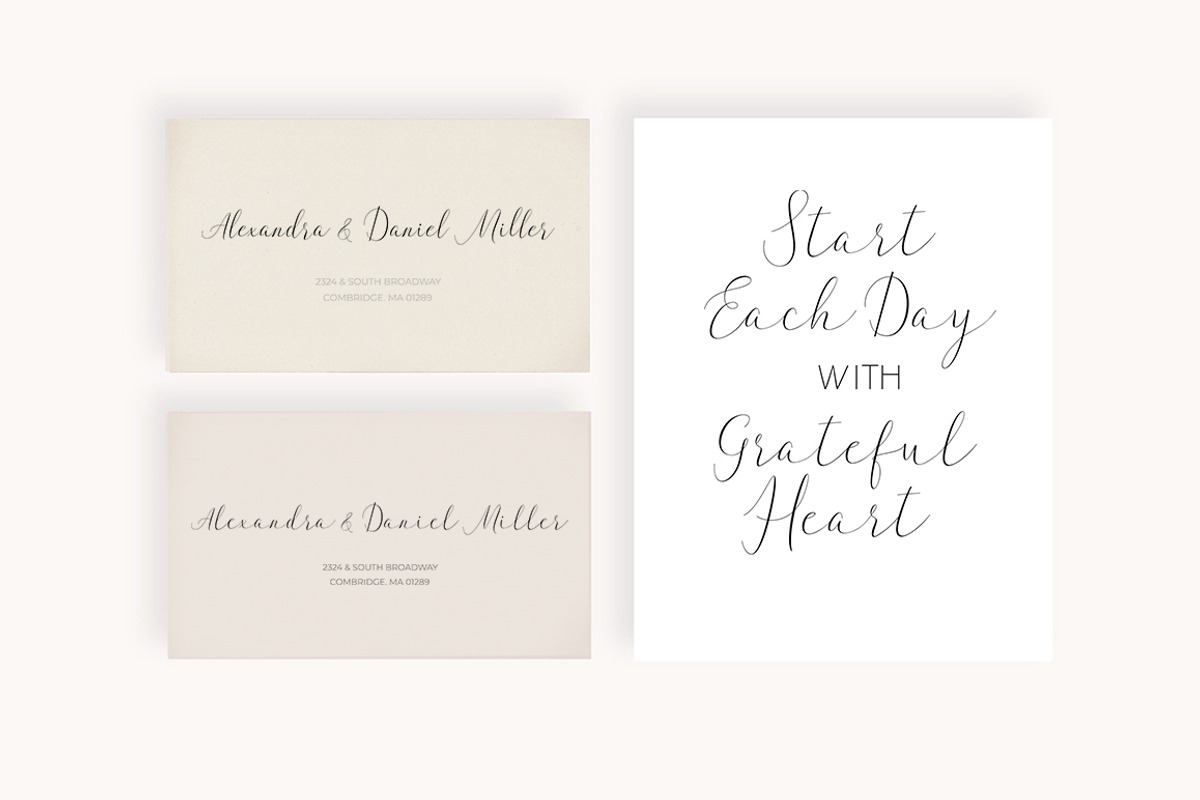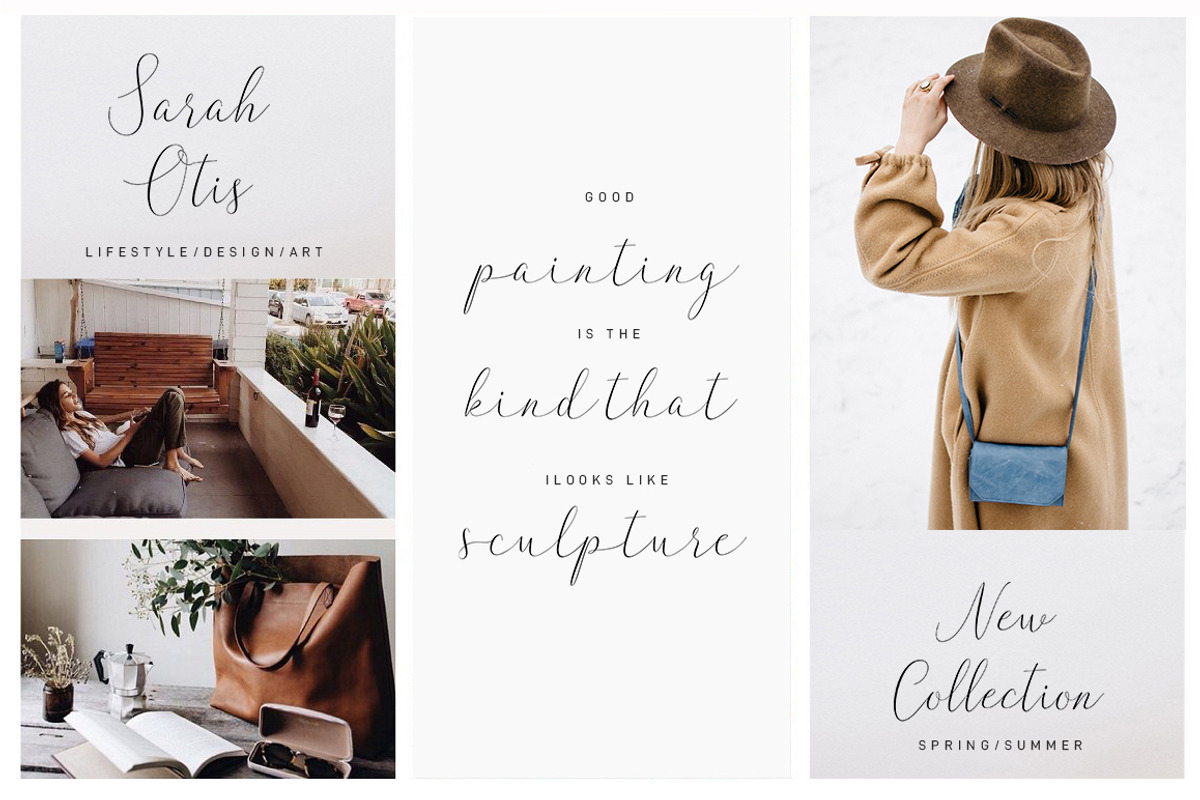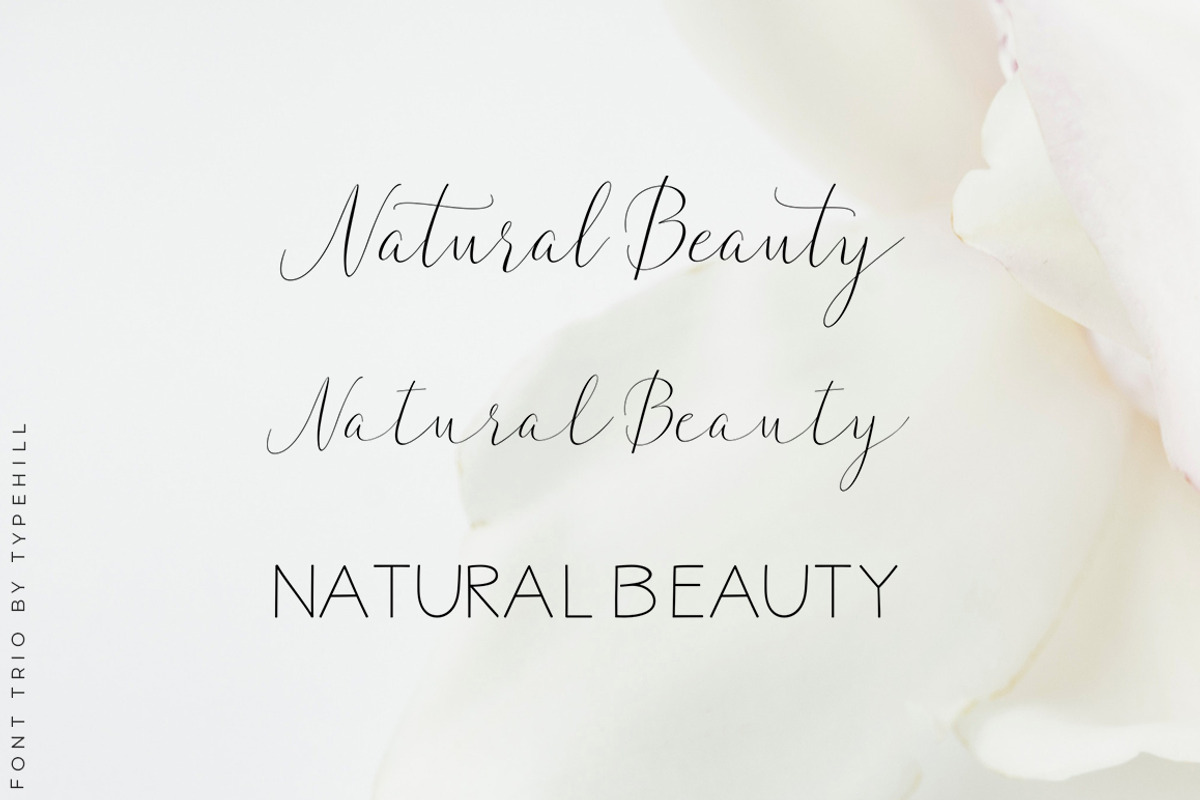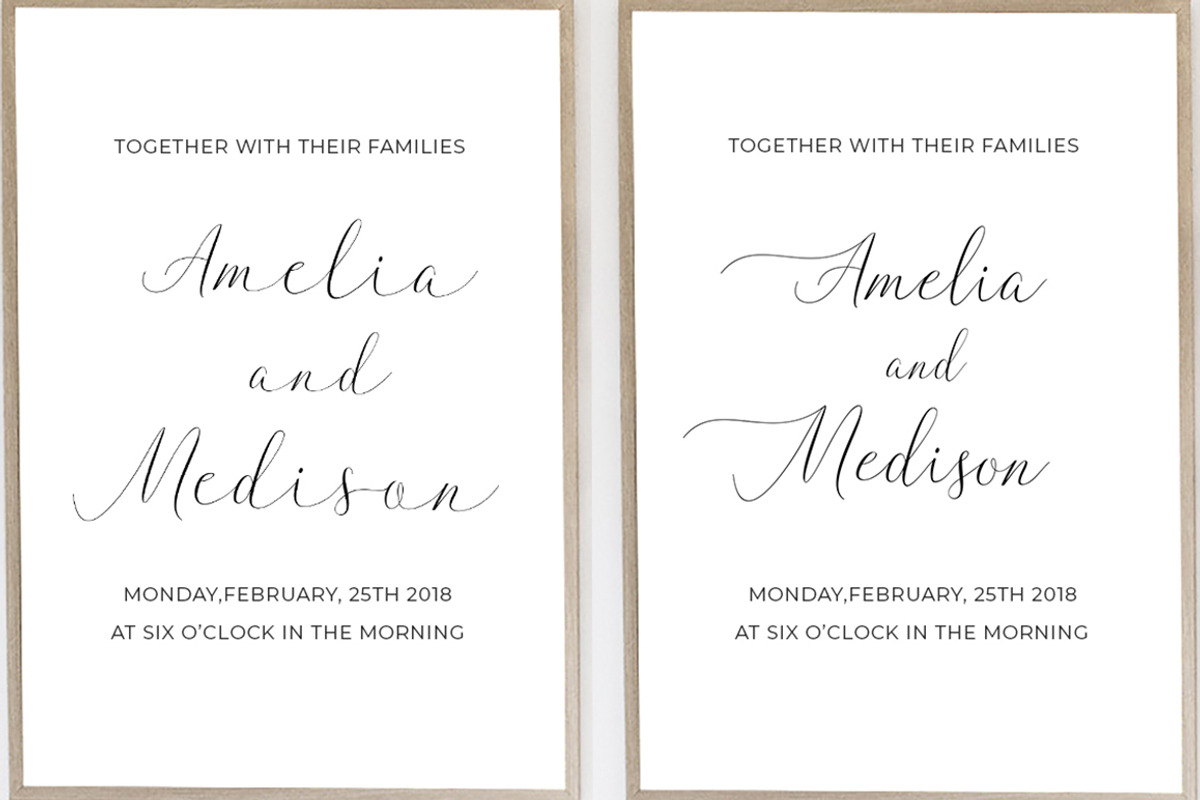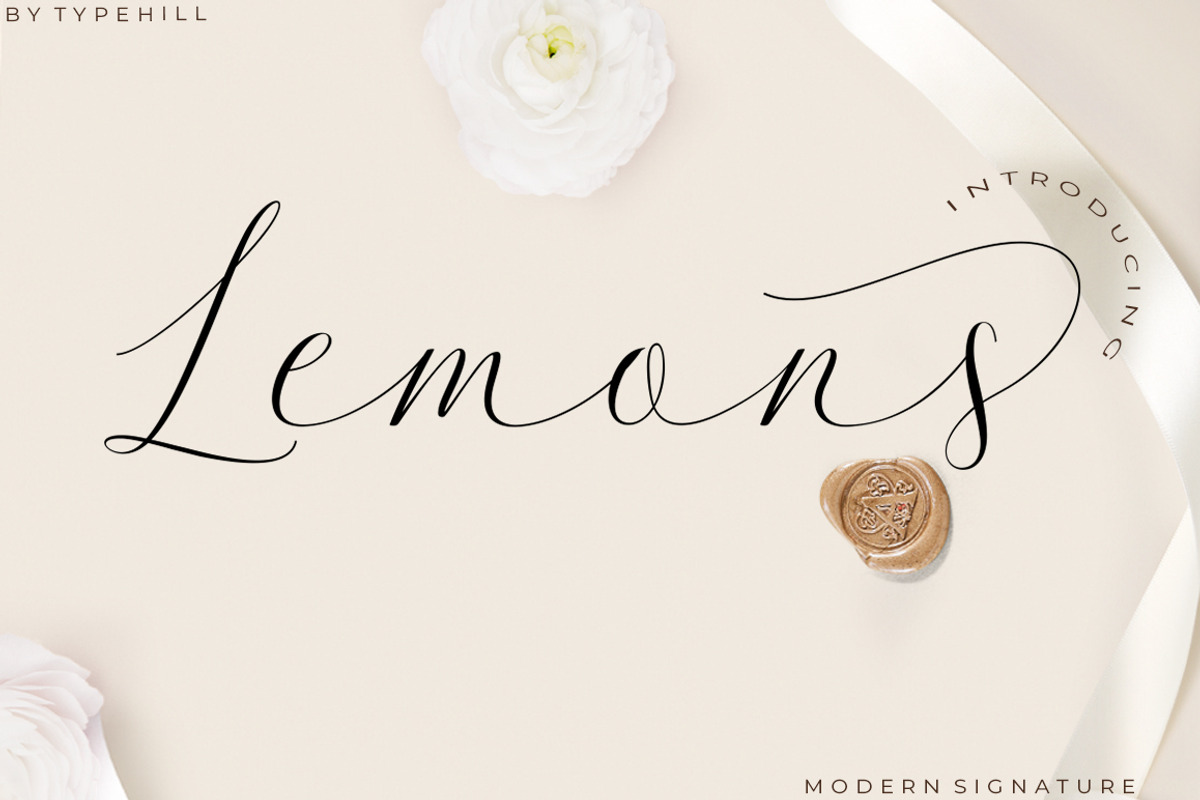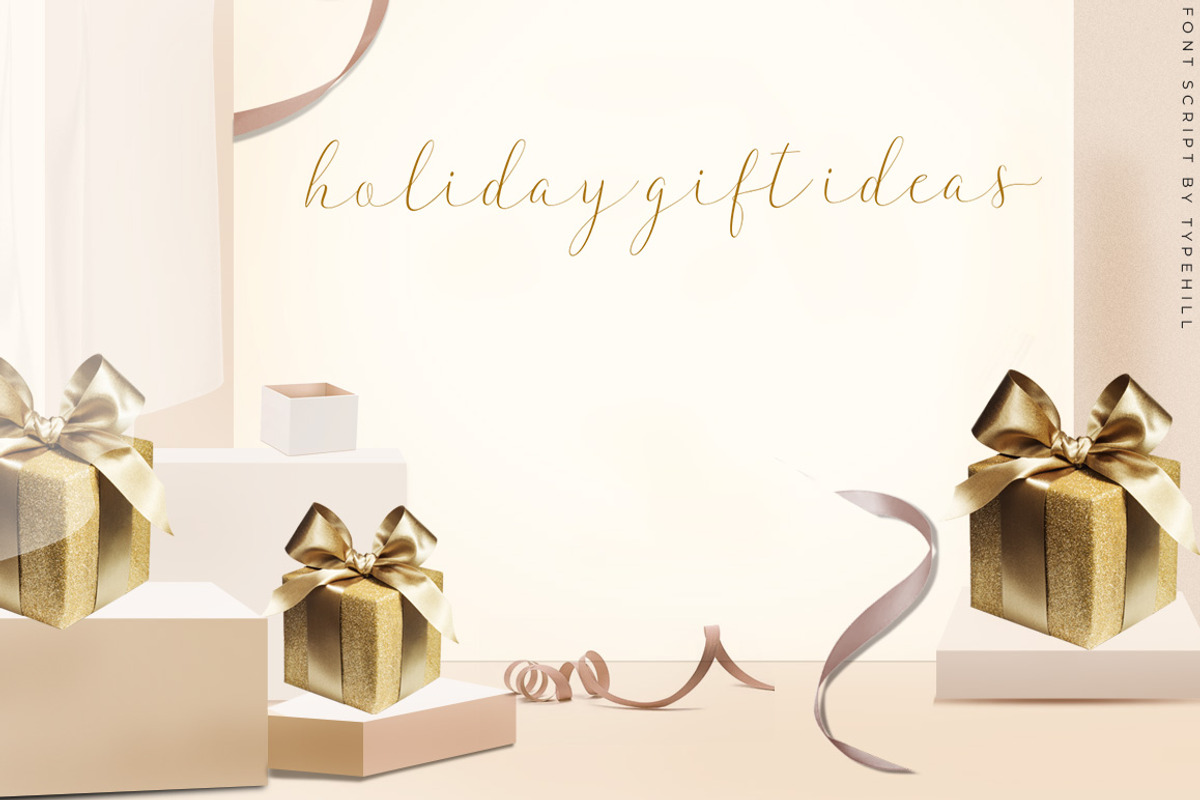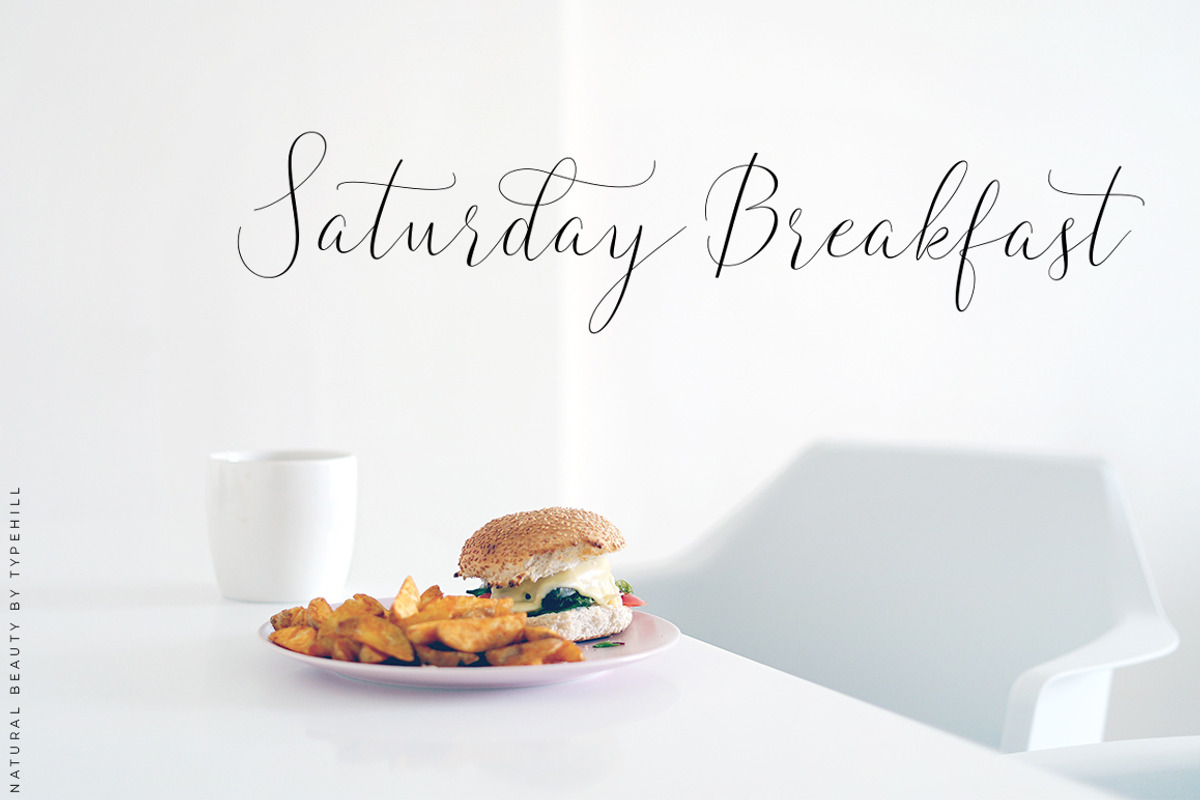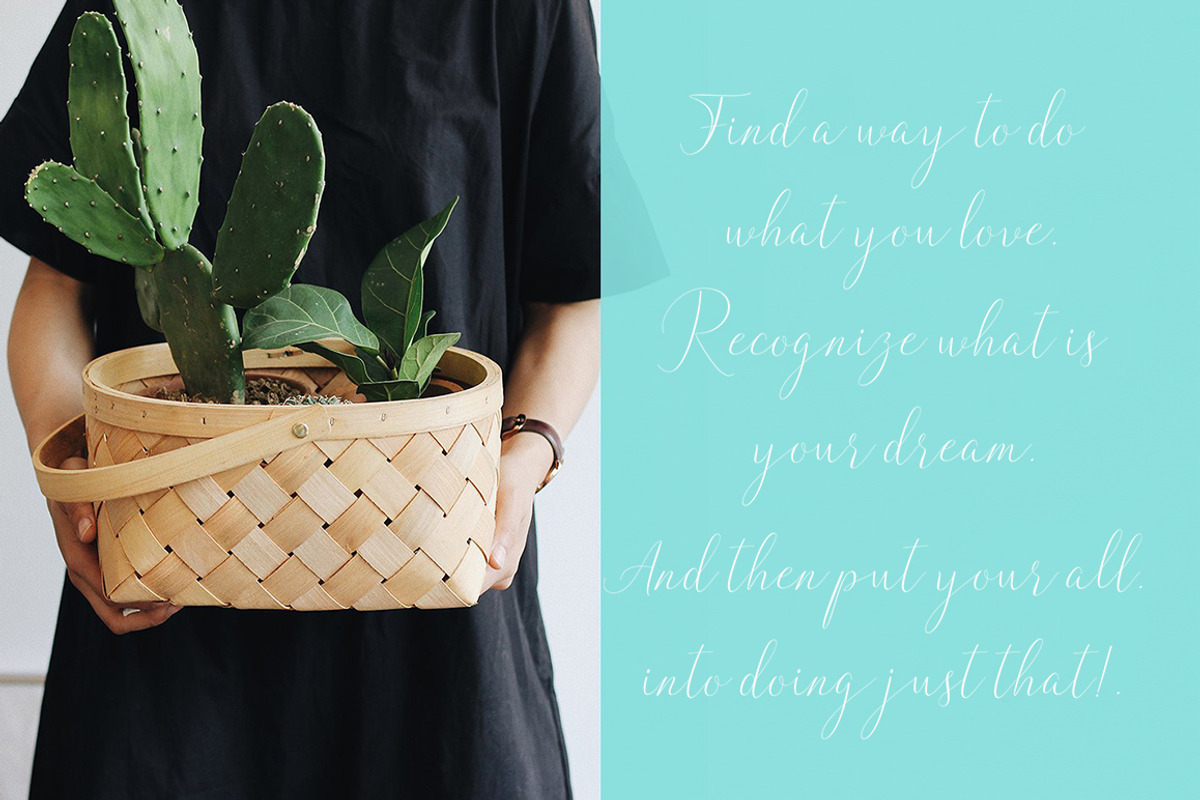
Lemons Font Trio
Lemons Script are a new modern script font with an irregular base line. Style trendy and feminine. Lemons looks beautiful for branding, logos, wedding goods, greeting cards, fashion, lookbook, marketing promotions. Including initial letters and terminals, alternates, ligatures and multiple language support.
- Including initial letters and terminals, alternates, ligatures and multiple language support.